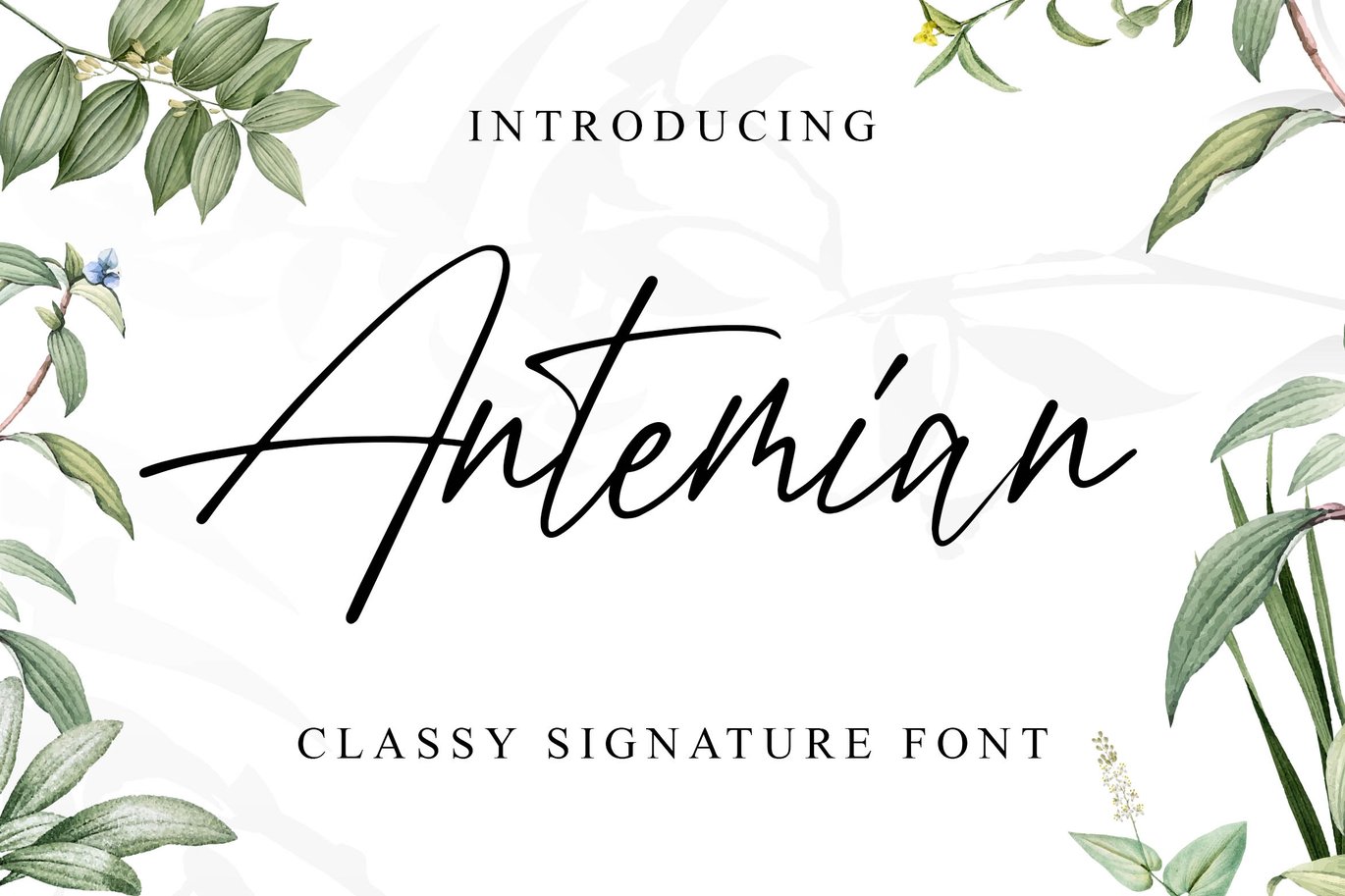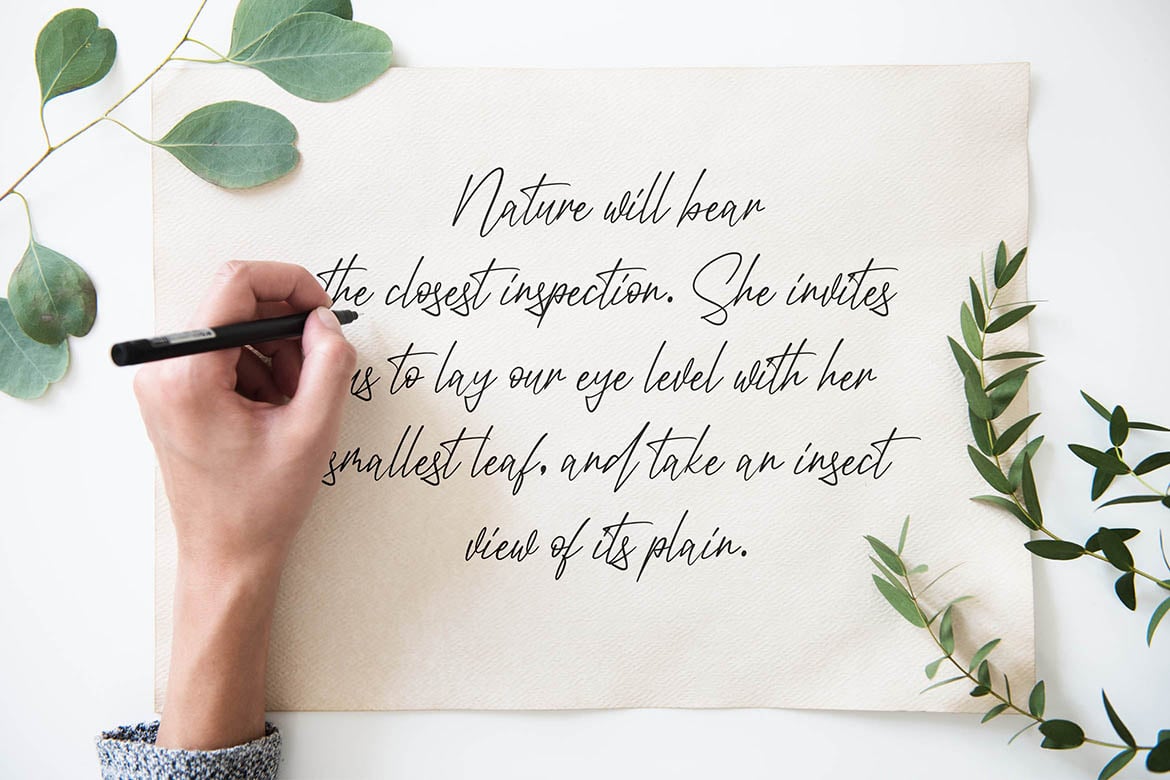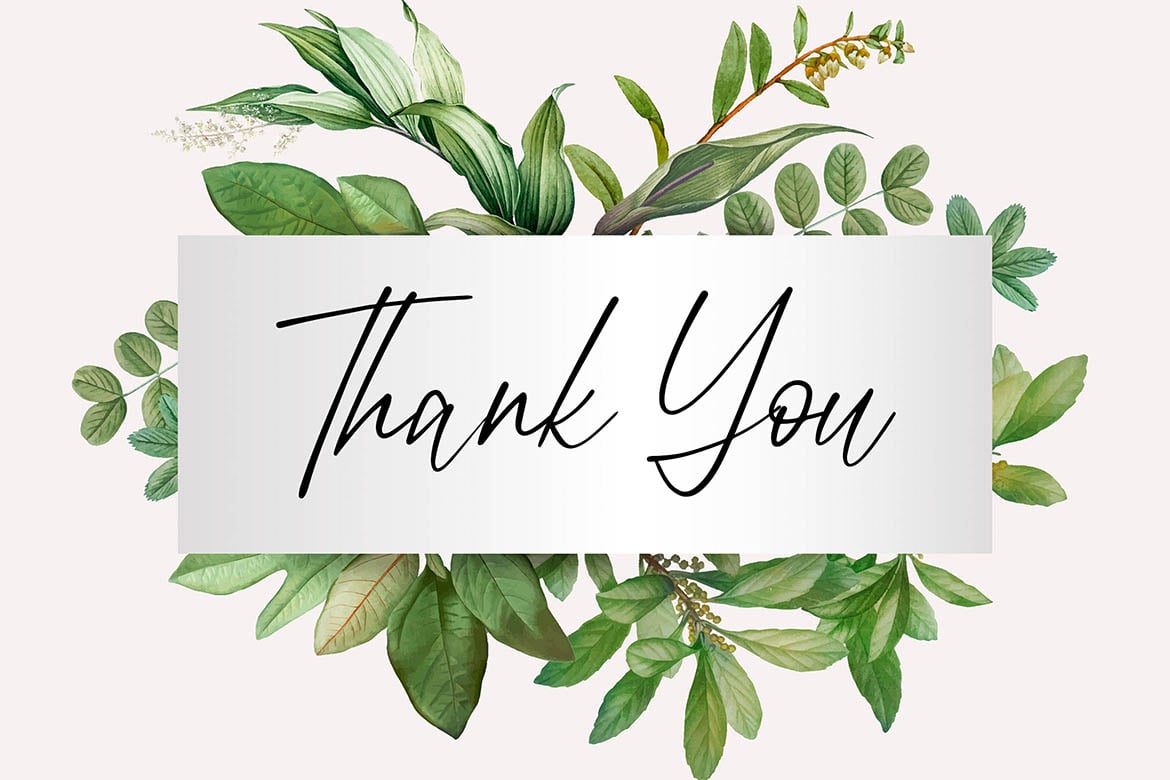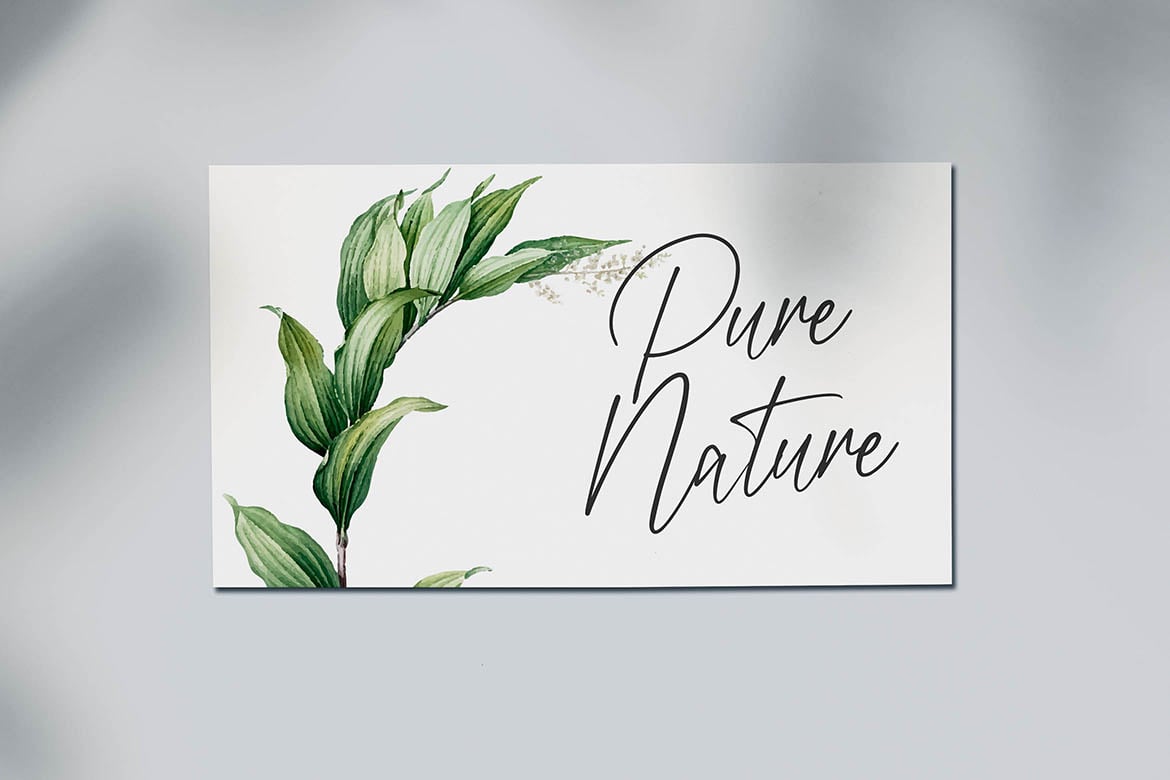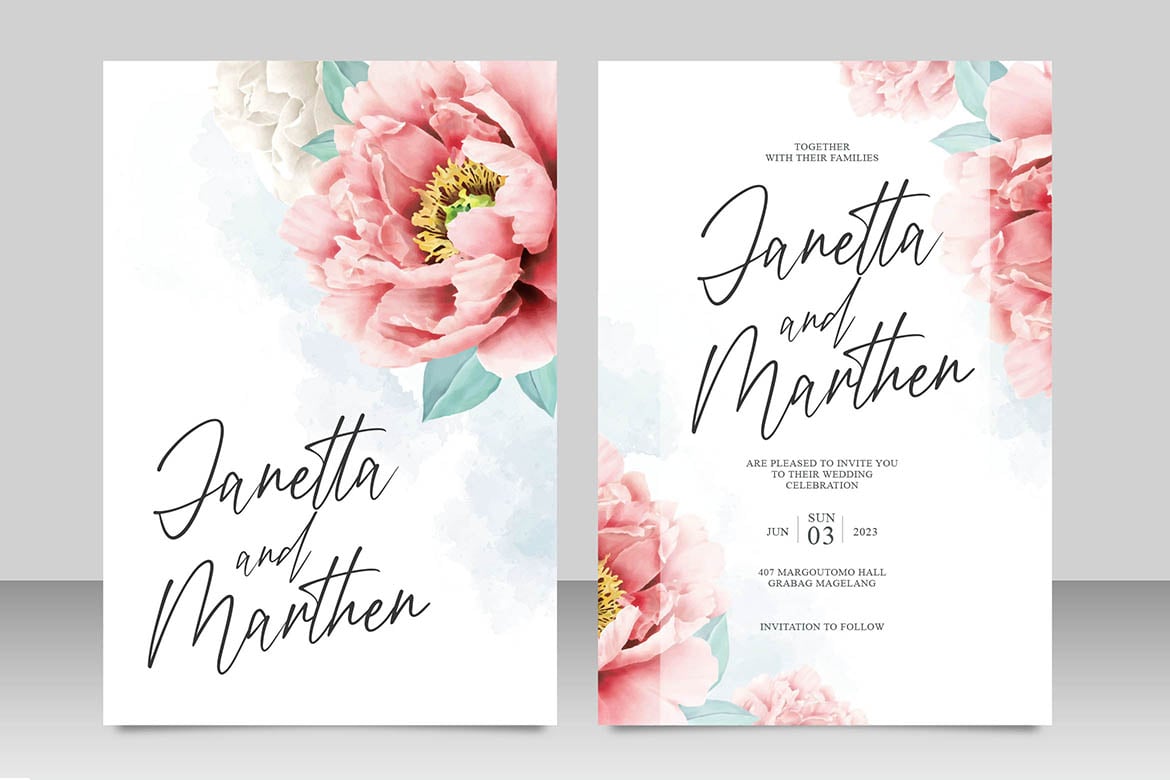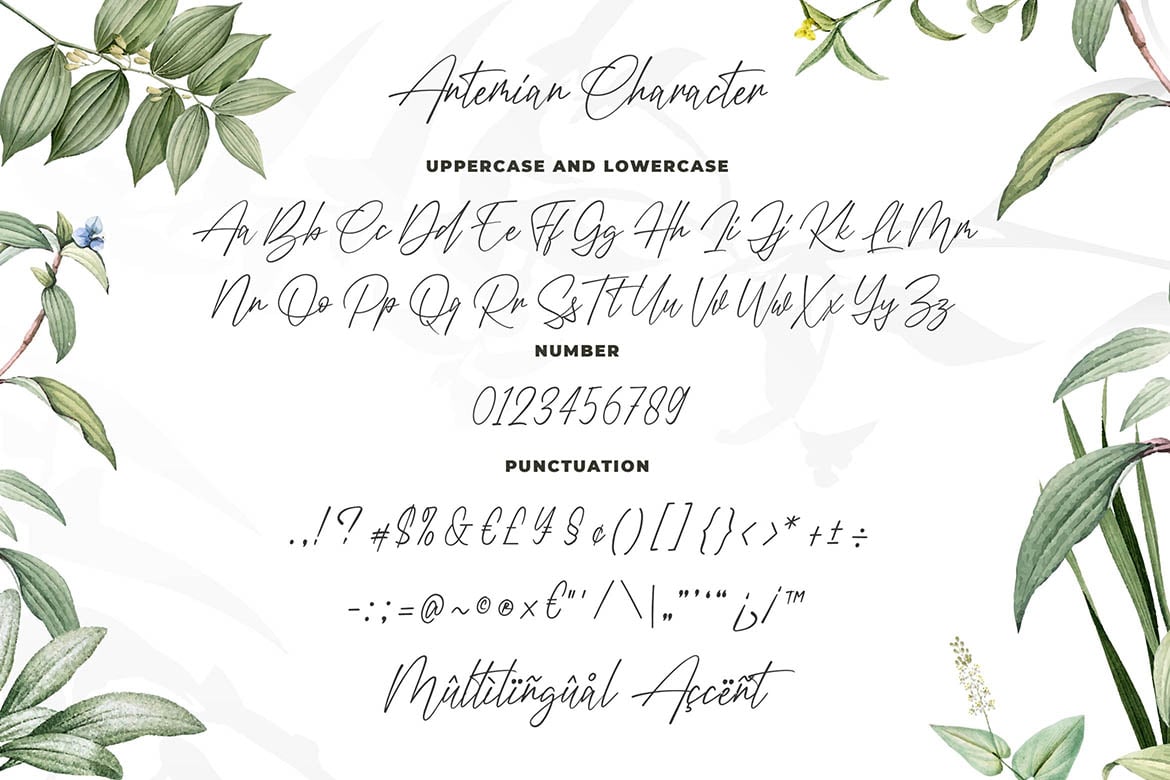
Antemian Classy Signature Font
Introducing of our new product the name is Antemian Classy Signature Font. Antemian inspired by sexy signature this font is a fun theme very good for signature, poster, food, wedding, branding etc
MULTILINGUAL ACCENT :
ŽžŠŒšŸÀÁÂÃÄÅÆÇÈÉÊËÌÍÎÏÐŁÑÒÓÔÕÖØÙÚÛÜÝßàáâãäåæçèéêëìíîïłñòóôõöøùúûüýÿ